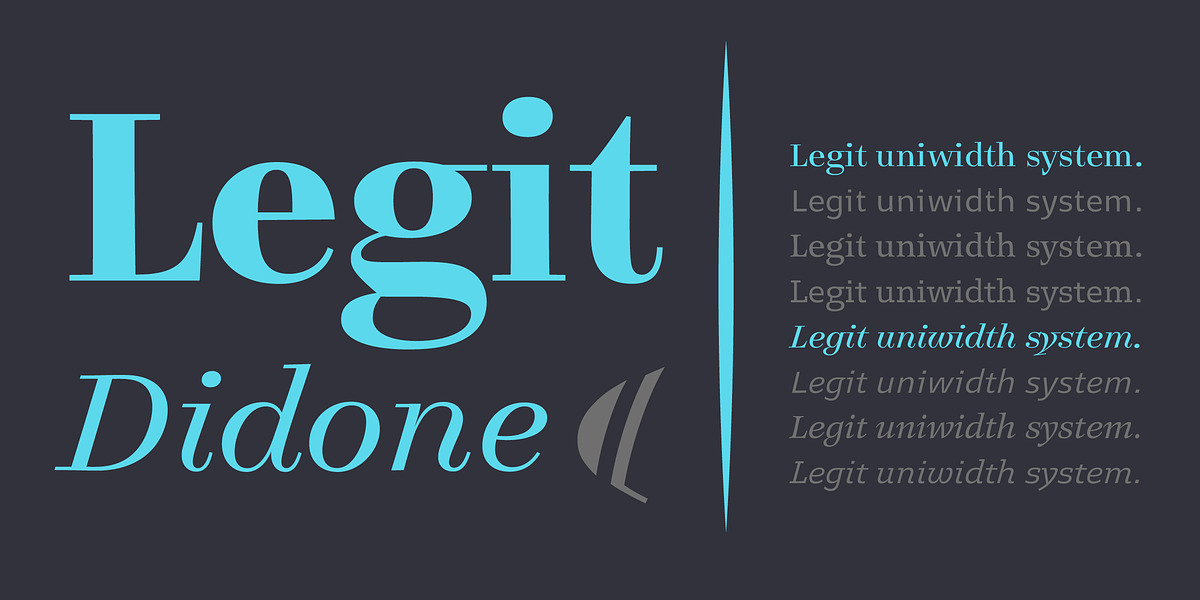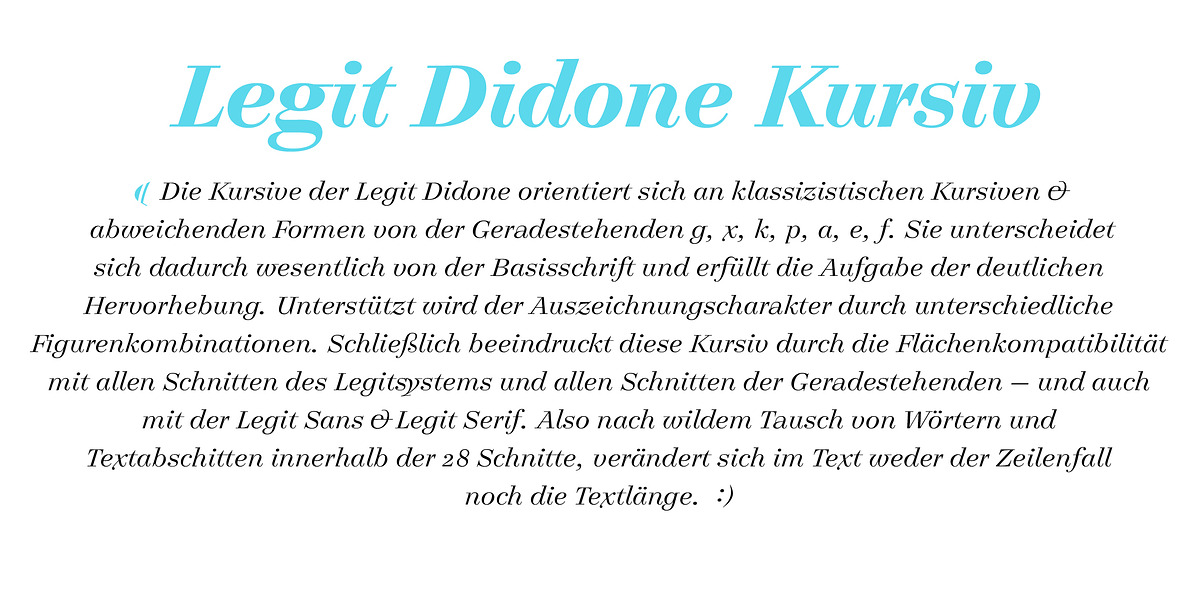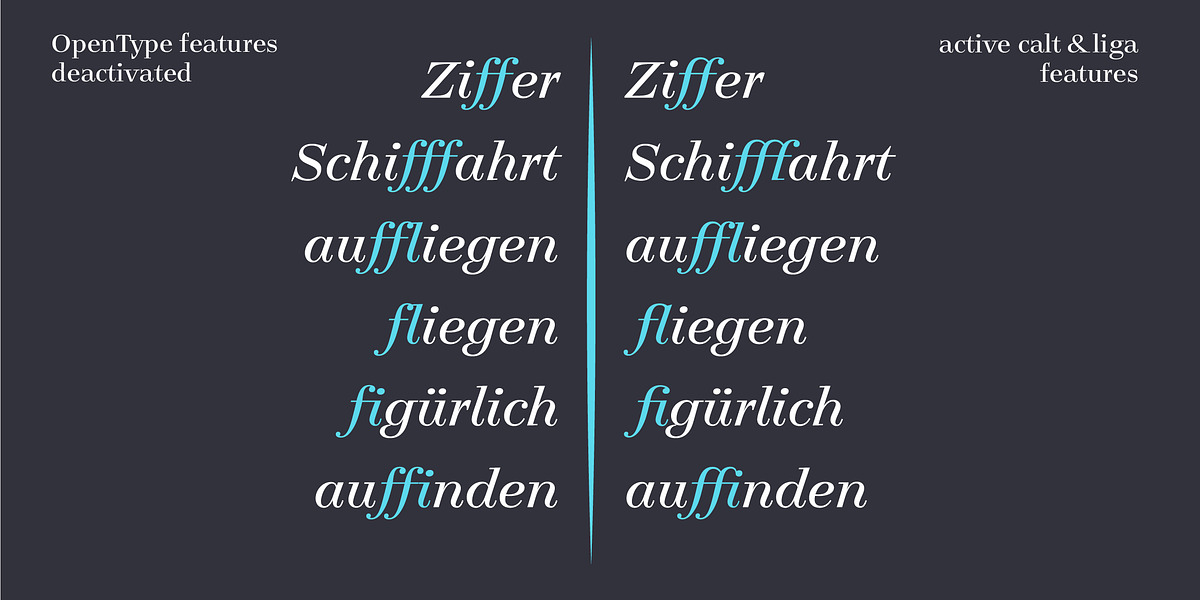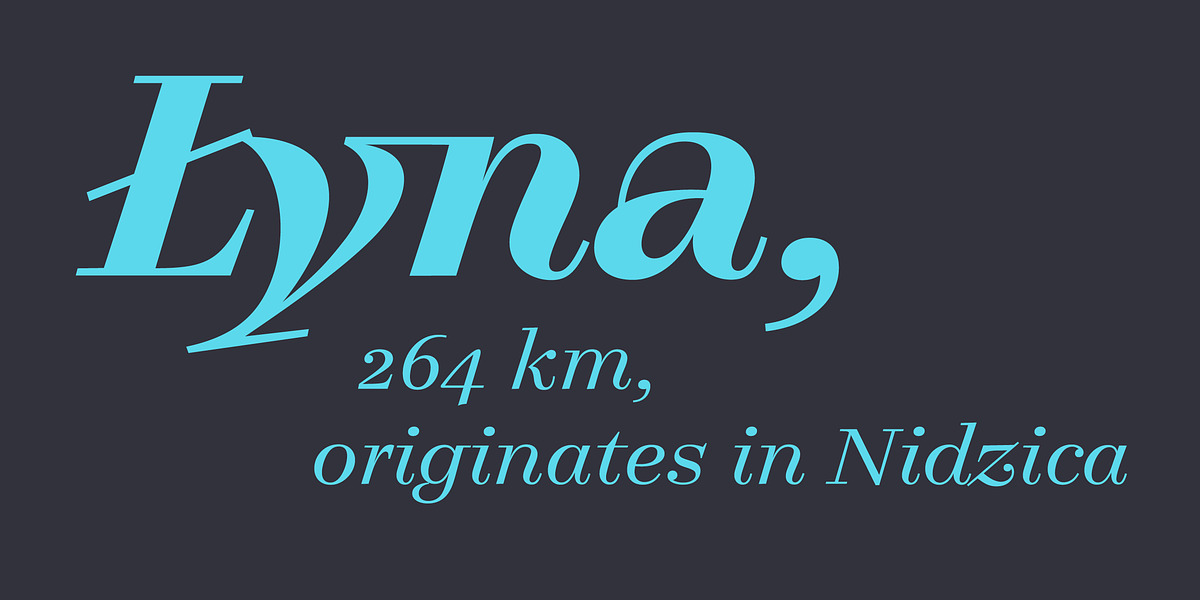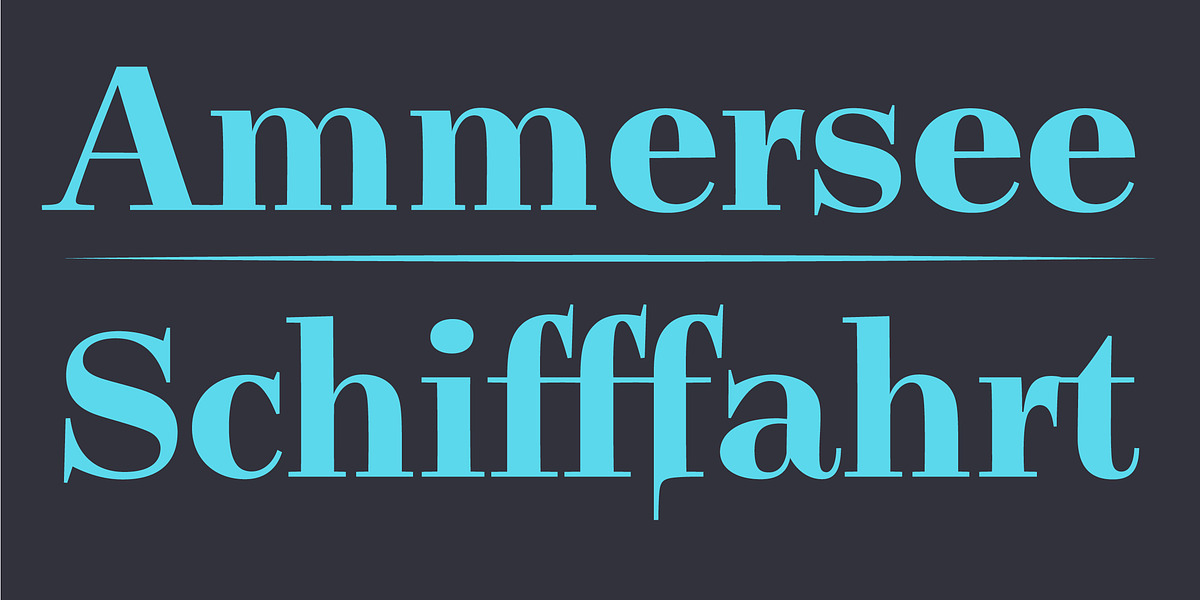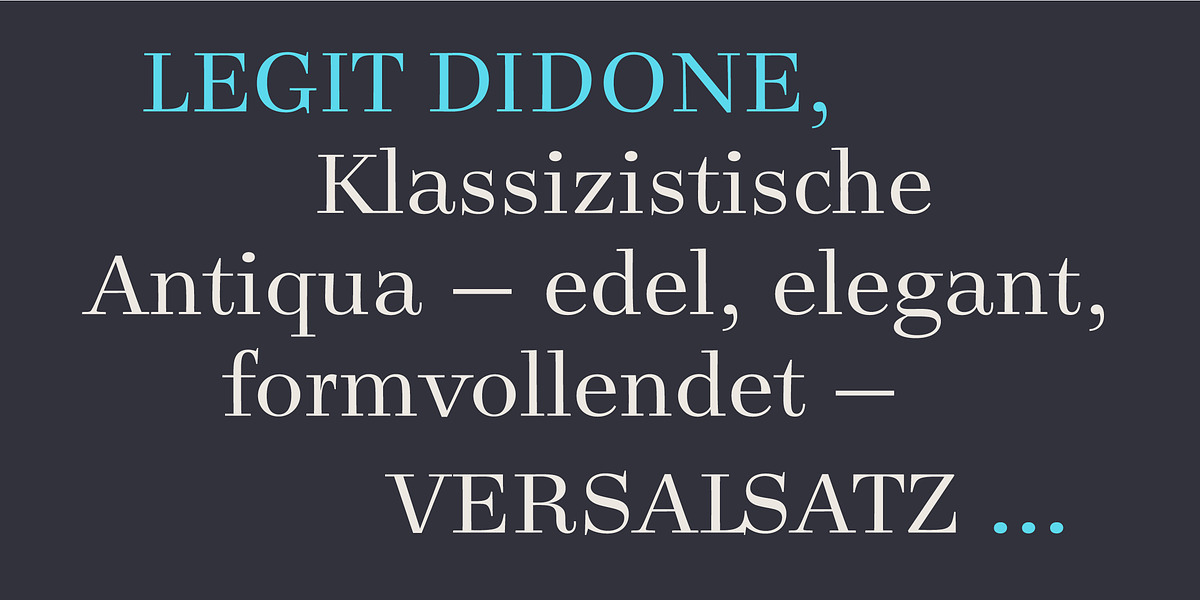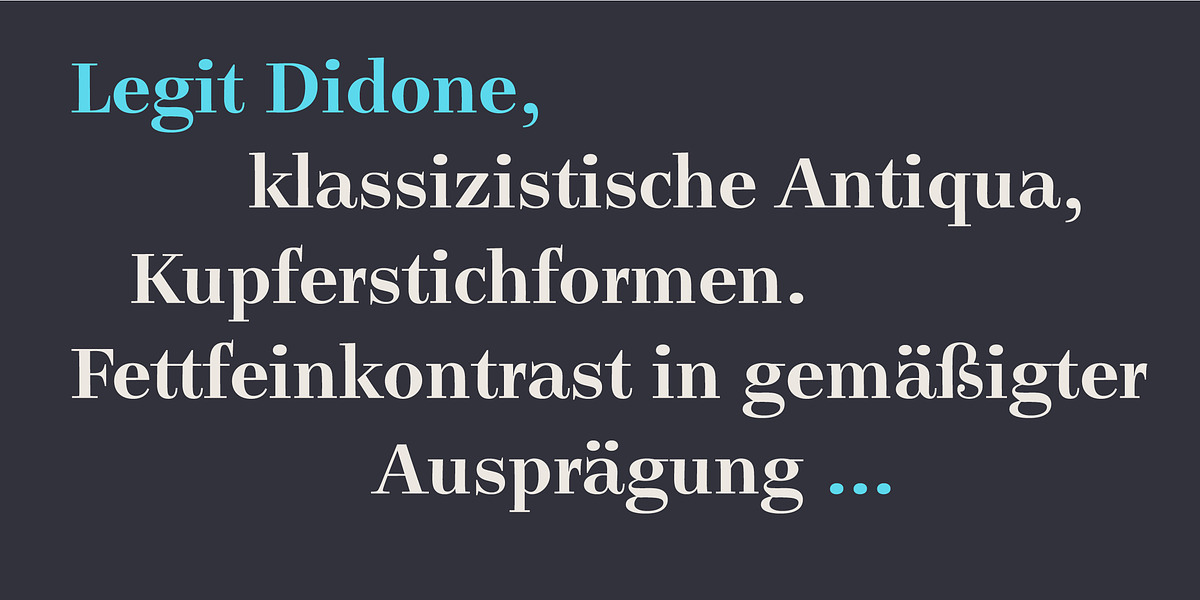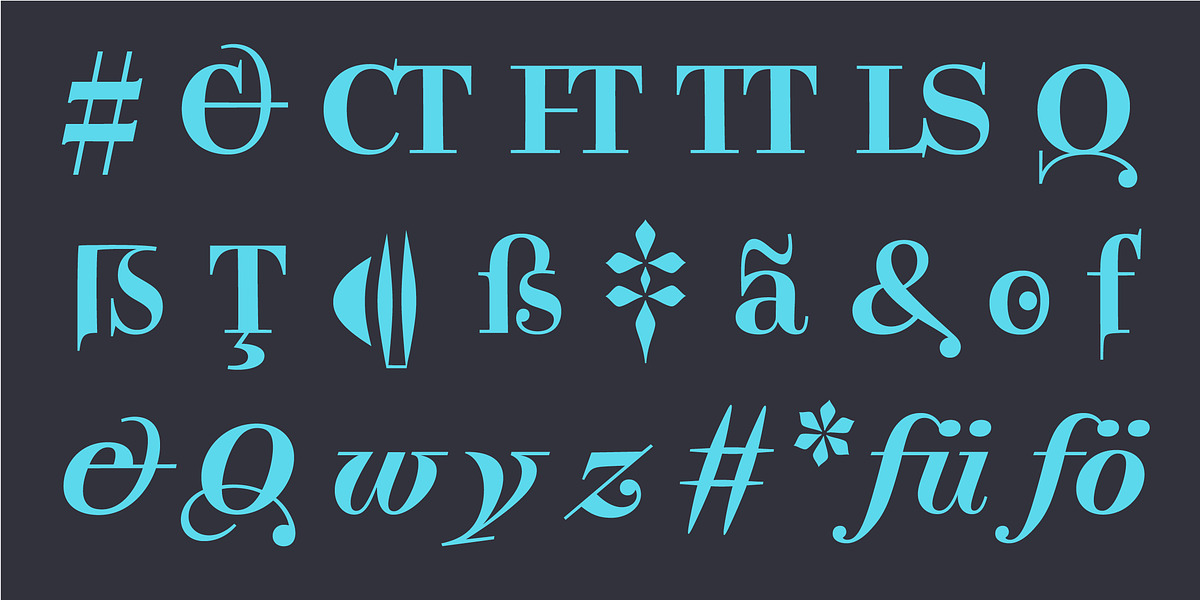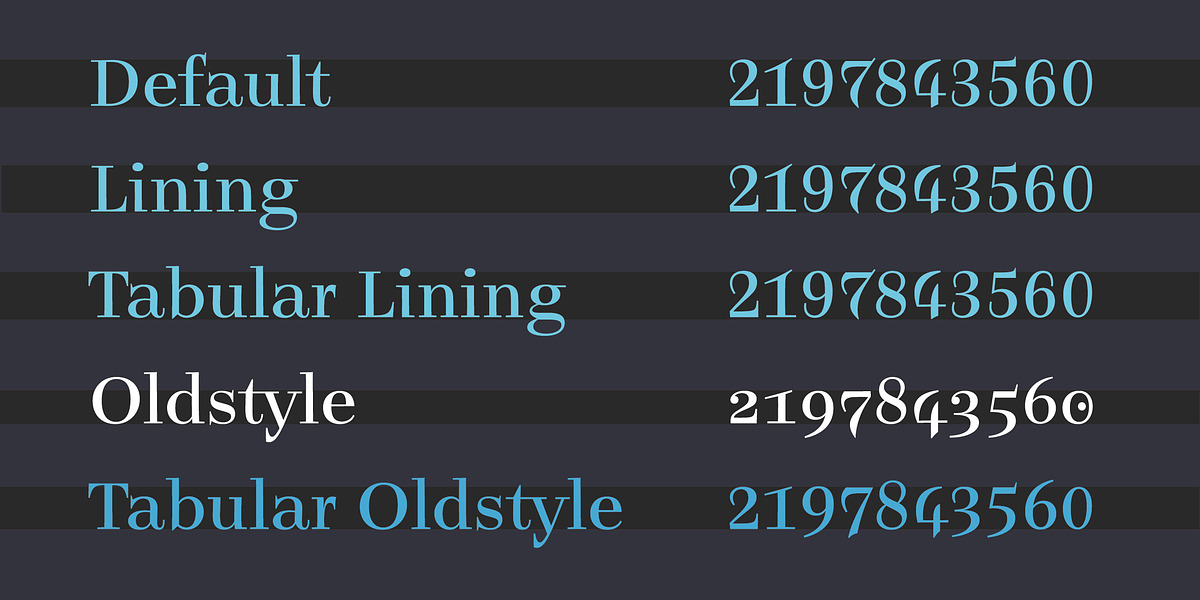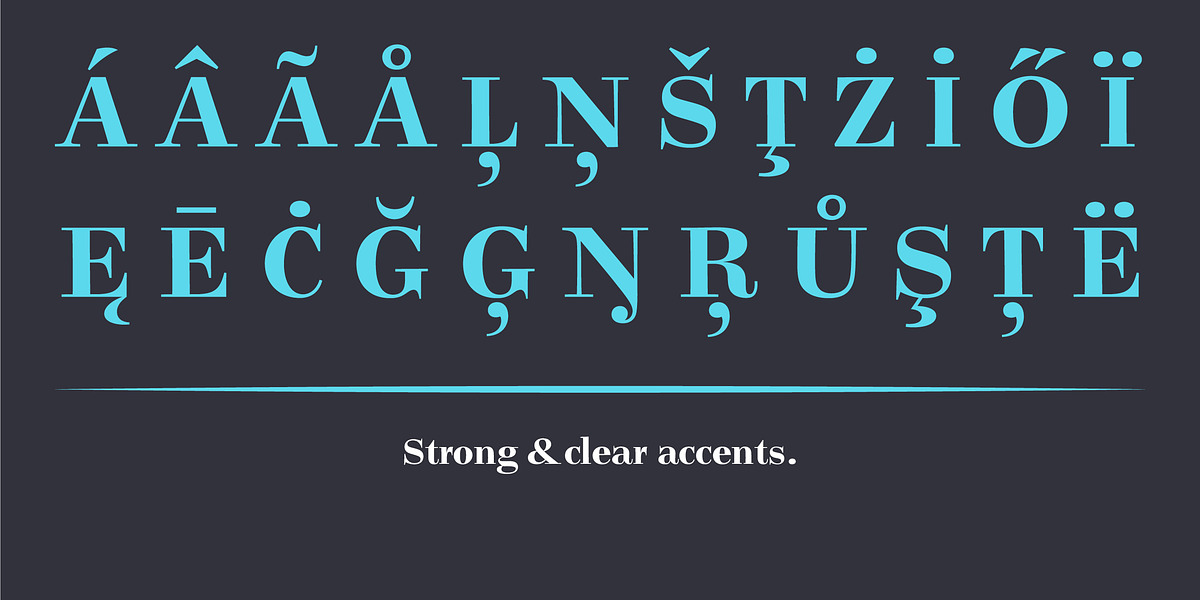
Legit Didone
Legit Didone is a modern take on the classic didone serif style. It's designed to be both legible at small sizes for body text and elegant for display use. The unique feature of this typeface is its uniwidth system, meaning all weights and styles maintain the same width, allowing for easy swapping without disrupting layout. It also includes ligatures, stylistic alternates, and strong, clear accents supporting over 36 languages.